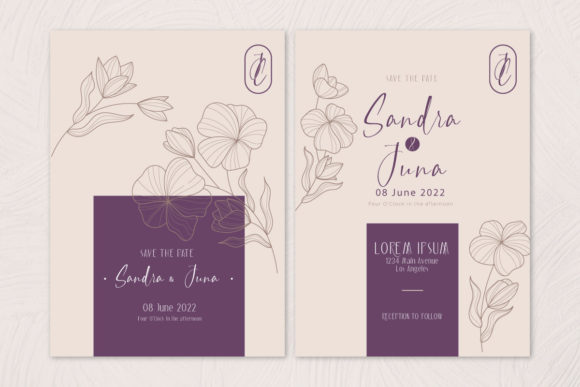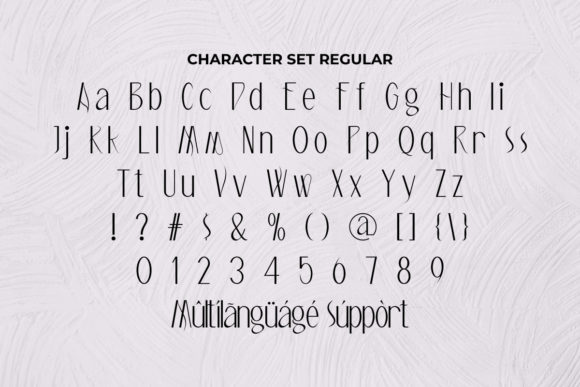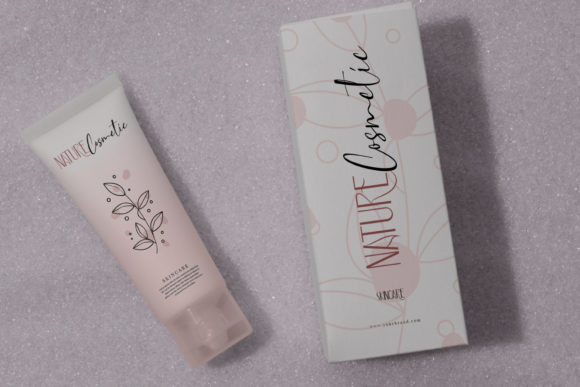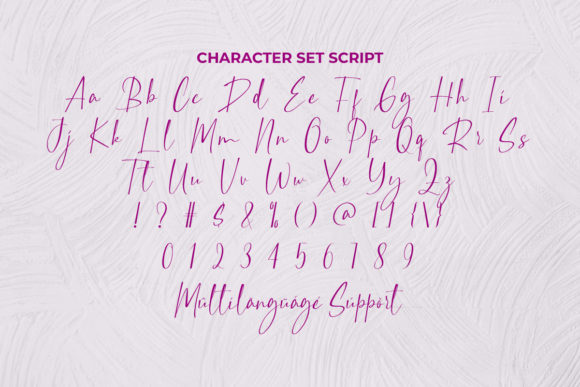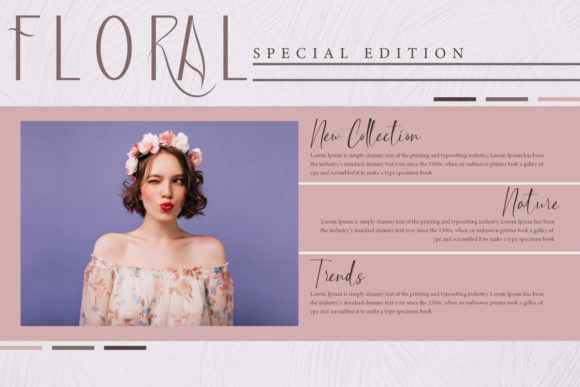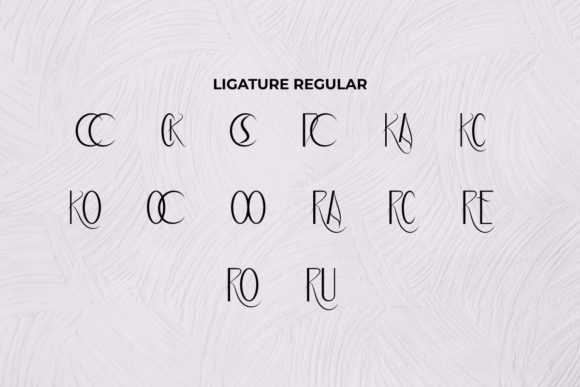
Introduction to Magnesian Font
Have you ever stared at a blank canvas, waiting for inspiration to strike? You’ve got a concept, a theme, and a vision, but the words just aren’t flowing. That’s when the perfect font can make all the difference. Enter the Magnesian Font, a stunning duo of sans serif and script styles that are handcrafted to work together in harmony.
As a designer, you know that a great font can elevate your creative project from good to great. And with the Magnesian Font, you’ll be able to create a unique and stylish look that’s perfect for weddings, beauty care, logos, product designs, quotes, websites, and more. Plus, with its PUA encoded design, you’ll have access to all the glyphs and swashes you need to bring your vision to life.
Magnesian Font
- High-quality design font ideal for creative projects and artistic expressions
- Includes 500+ glyphs, ensuring comprehensive language support and versatility in creative projects
- Designed with a unique, modern aesthetic, perfect for adding a touch of sophistication to your design
Honest Review: Magnesian Font
I recently had the chance to work with the Magnesian Font, and I’m excited to share my honest thoughts on this design resource. As a designer, I’m always on the lookout for high-quality fonts that can elevate my creative projects. The Magnesian Font definitely delivers on this front.
One of the things that works well with this font is its versatility. ✨ It’s perfect for a variety of projects, from headings to body text, and its sleek design makes it a great choice for modern and minimalist styles. I also appreciate the fact that it comes with a transparent background, which makes it easy to work with in different design contexts.
Overall, I’m impressed with the Magnesian Font and would definitely consider using it in my future projects. It’s a high-quality design resource that’s perfect for designers who want to add a touch of elegance to their creative projects.
- Perfect for headings and body text
- Sleek and modern design
- Available in a few weights
Magnesian Font
The Magnesian Font is suitable for various creative projects, including:
Logo design
Brochure design
Infographic design
To get the most out of the Magnesian Font, consider the following tips:
Use it in combination with other design elements to create a visually appealing design.
Experiment with different font sizes and colors to add depth to your design.